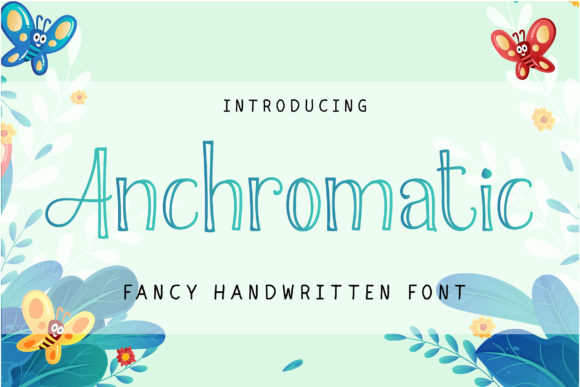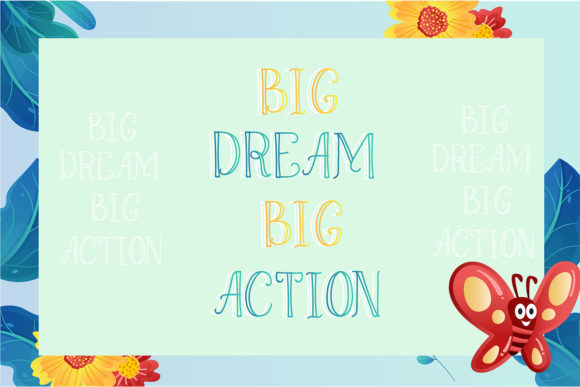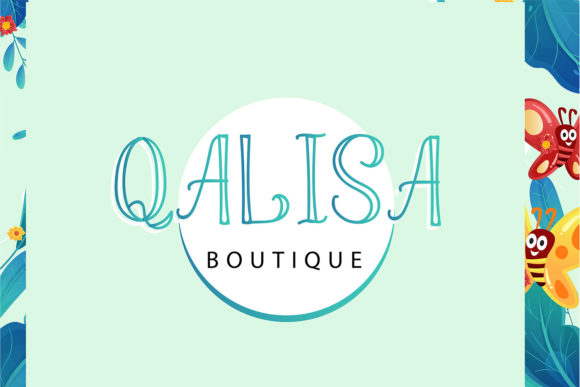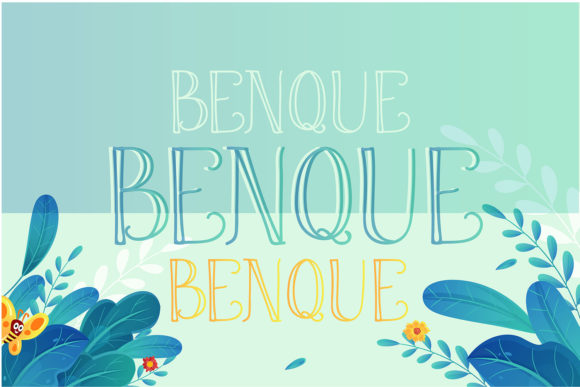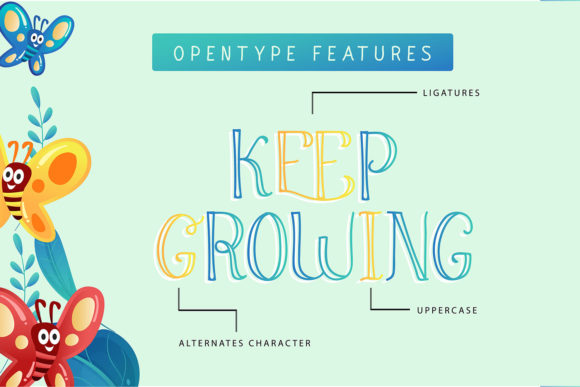
Anchromatic Font
About Anchromatic Font
Anchromatic is a chic handwritten font, described by an elegant touch, perfect for your favorite projects. This font is PUA encoded which means you can access all glyphs and swashes with ease!